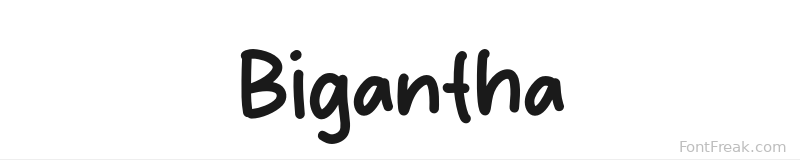
Bigantha
About Bigantha
Bigantha, designed by MJType in 2024, is a captivating display font that embodies a unique blend of modern and playful aesthetics. As a freeware font, it stands out with its distinctive visual characteristics, making it an excellent choice for various design projects. The font features a bold stroke weight, giving it a prominent presence, while the contrast between thick and thin lines adds a dynamic quality. The spacing is carefully balanced, allowing for readability while maintaining an engaging visual flow. Decorative elements are subtly integrated, enhancing its charm without overwhelming the overall design.
Bigantha is particularly well-suited for a range of creative applications. It can elevate wedding invitations with its elegant yet approachable style, making special occasions feel even more personalized. For movie posters, the font’s boldness captures attention, effectively conveying the film's genre and tone. Restaurant menus can benefit from Bigantha's playful nature, enticing diners and setting a relaxed vibe. Additionally, it serves well in branding projects, where small business owners can utilize the font to create memorable logos or signage that resonate with their target audiences. Content creators will find Bigantha an appealing choice for social media graphics, as its vibrant character draws the eye and engages viewers.
What truly sets the Bigantha font apart is its versatility and charm. It combines contemporary design elements with a touch of whimsy, making it adaptable for both formal and informal contexts. As a result, it appeals to graphic designers, small business owners, and content creators alike. With the Bigantha font free download, you have the opportunity to explore its potential in your next project, adding a distinctive flair that captures attention and leaves a lasting impression.